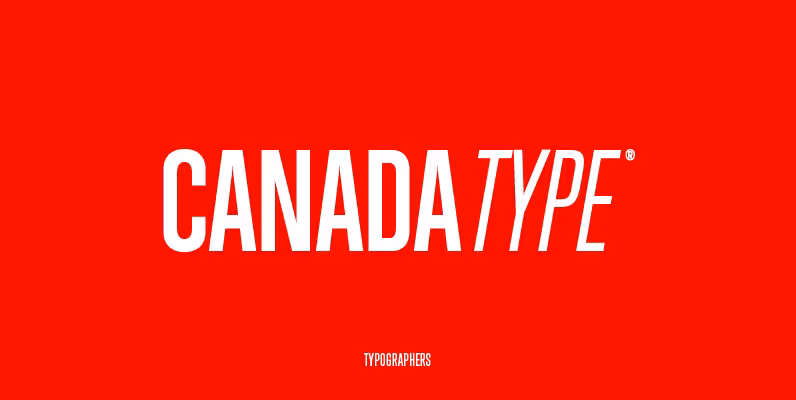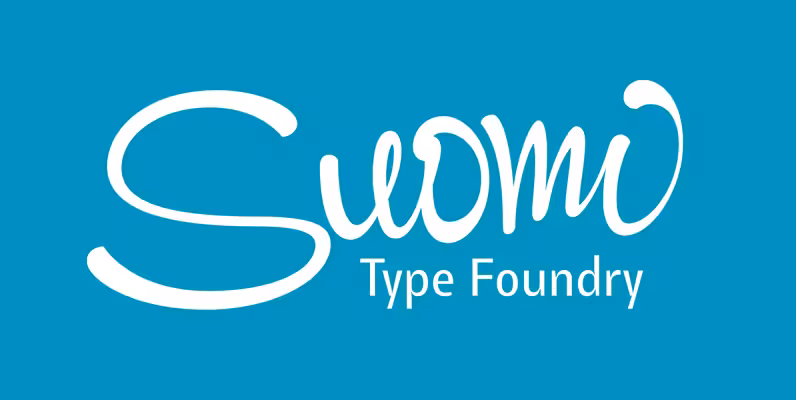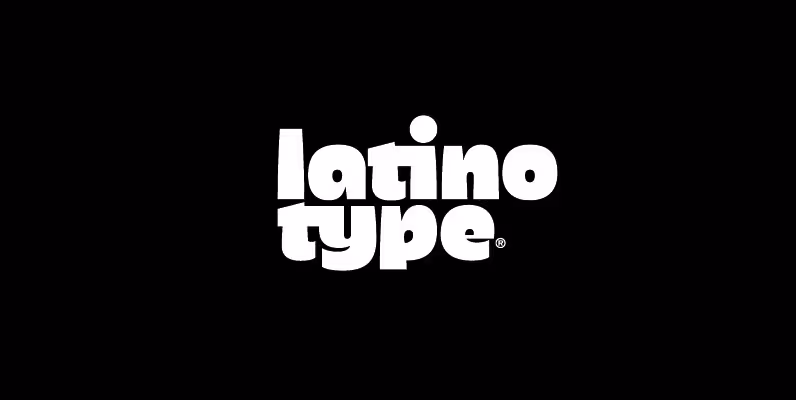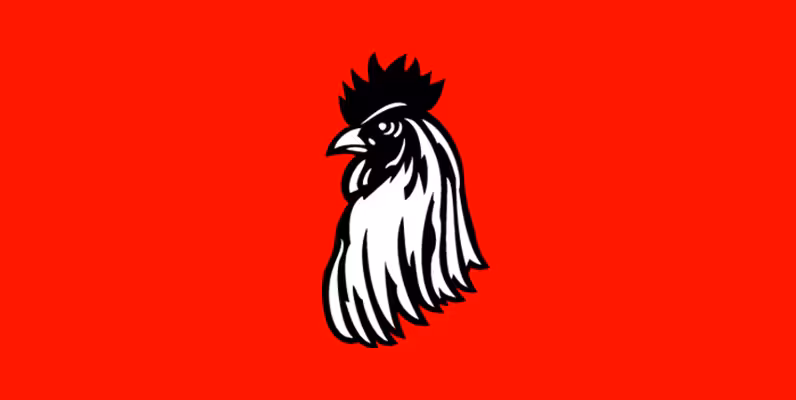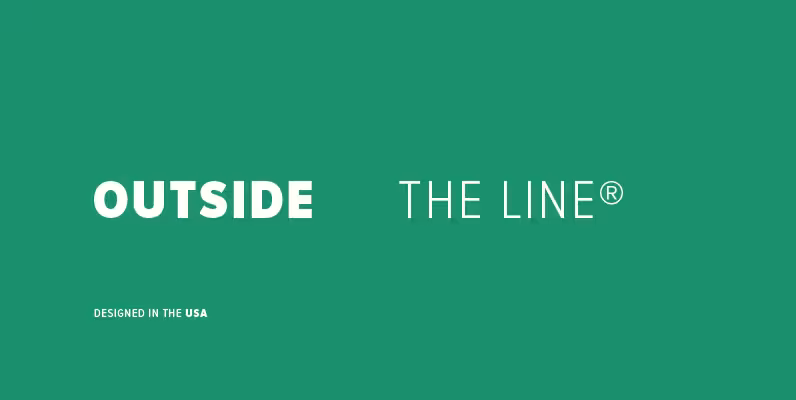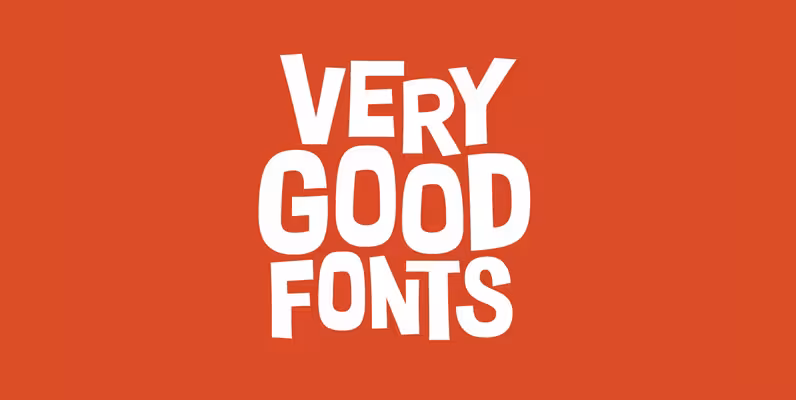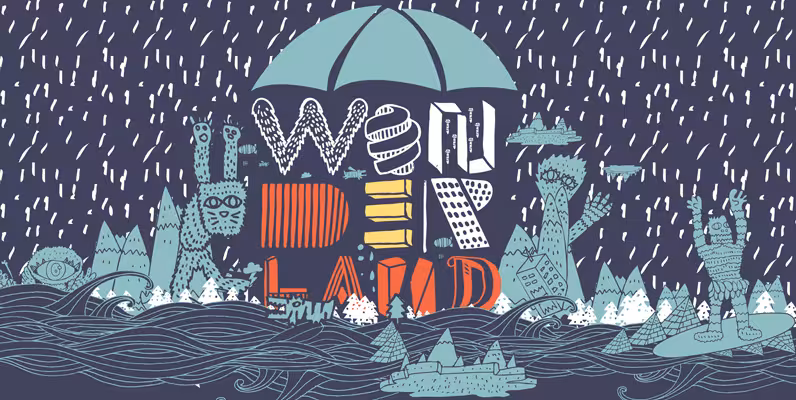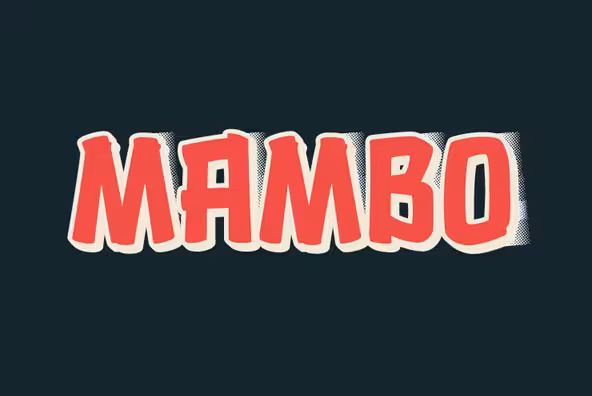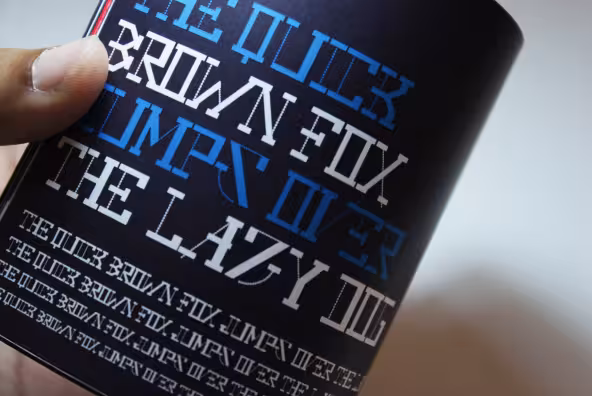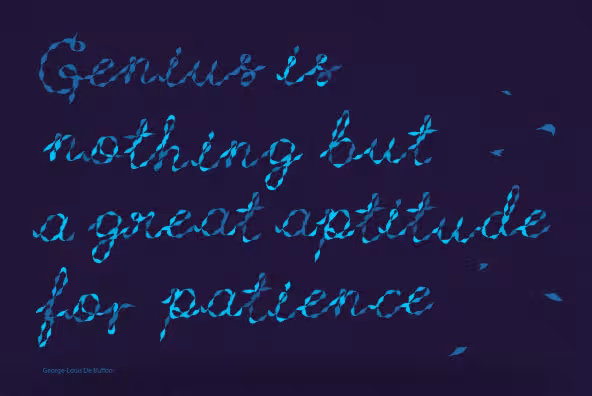
7 Font foundries & type designers that will blow your mind
The art of type design is for a special breed of designer. The insane attention to detail required to create typefaces is enough to drive the average person mad, as every subtle curve and line matters. One tiny mistake is the difference between a masterpiece and junk.
We’ve covered typography and a lot lately on TNW, but it’s high time we featured some awesome type designers and full-on foundries in all their glory. Here’s a list of  7 to that are sure to make you drool:
Latinotype
Latinotype is a new digital type foundry established in the year 2007 in the city of Concepcion, Chile. Its goal is to design new typefaces remixing diverse influences related to the team’s South American identity,  most widely known as “latino”, with high quality products for the contemporary design industry.
Mija, Dans Le Cuisine (a gorgeous dingbat, shown above) and Mazurquica are particularly inspiring.
Canada Type
Canada Type is an independent type development studio based in Toronto. Since its inception in 2004, Canada Type has brought forth a comprehensive and popular library of typefaces that accommodate a variety of aesthetic tastes, including many best-selling fonts and work featured in plenty of design publications.
Check out Jezebel, Guillotine and Firefly if you really want to make your head spin!
Red Rooster
Steve Jackaman, a type and graphic arts expert with over 30 years experience, started Red Rooster Typefounders (RRT) foundry in 1990 with a team of highly skilled type designers, typographers and software experts as the core of his production team.
Check out Granby Elephant Pro, Steelplate Gothic and Venezuela.
Suomi Type Foundry
The philosophy of Suomi Type Foundry is to make extensive type families, so the user has more to choose from; too often you find a great typeface, but the weight is not just right. Suomi Type Foundry’s fonts come with an average of seven weights, so it’s likely that you will find the right weight. The team tries to keep the range of its type library as versatile as possible, from comfortable types for text setting, to signage type families, to more evocative fonts for brand design.
Feel free to let your jaw drop and take a look at Cider, Tide, Tobacco and Tictac.
Jackkrit Anantakul
Jackkrit Anantakul (born 1979) is the graphic designer who established Design Reform Council in 2005. He specializes in beautiful, experimental type treatments and illustrations.
You’ll want to check out YWFT Potjamon, YWFT Spikes and YWFT Buffer.
Very Good Fonts
Very Good Fonts is the outlet for the lettering designs of Paul Brannelly, assisted by digitizing skillionaire David Buck.
Take a peek at Two Stroke and Choc Chip.
Outside The Line
Rae Kaiser resides in a city on a lake but spends most of her time living in her head. She draws doodle fonts, hand-lettered fonts, on the computer and on paper.
Check out Cross Stitch and Fondly Yourz.